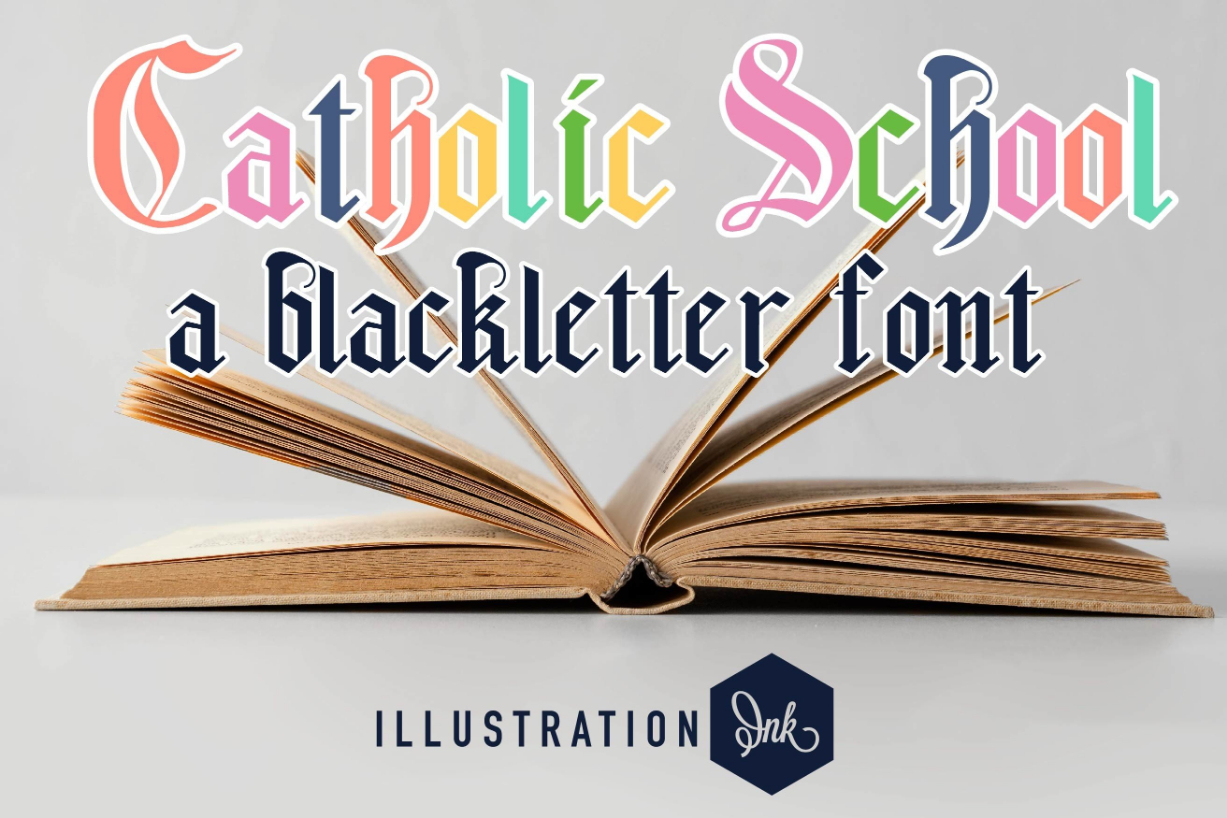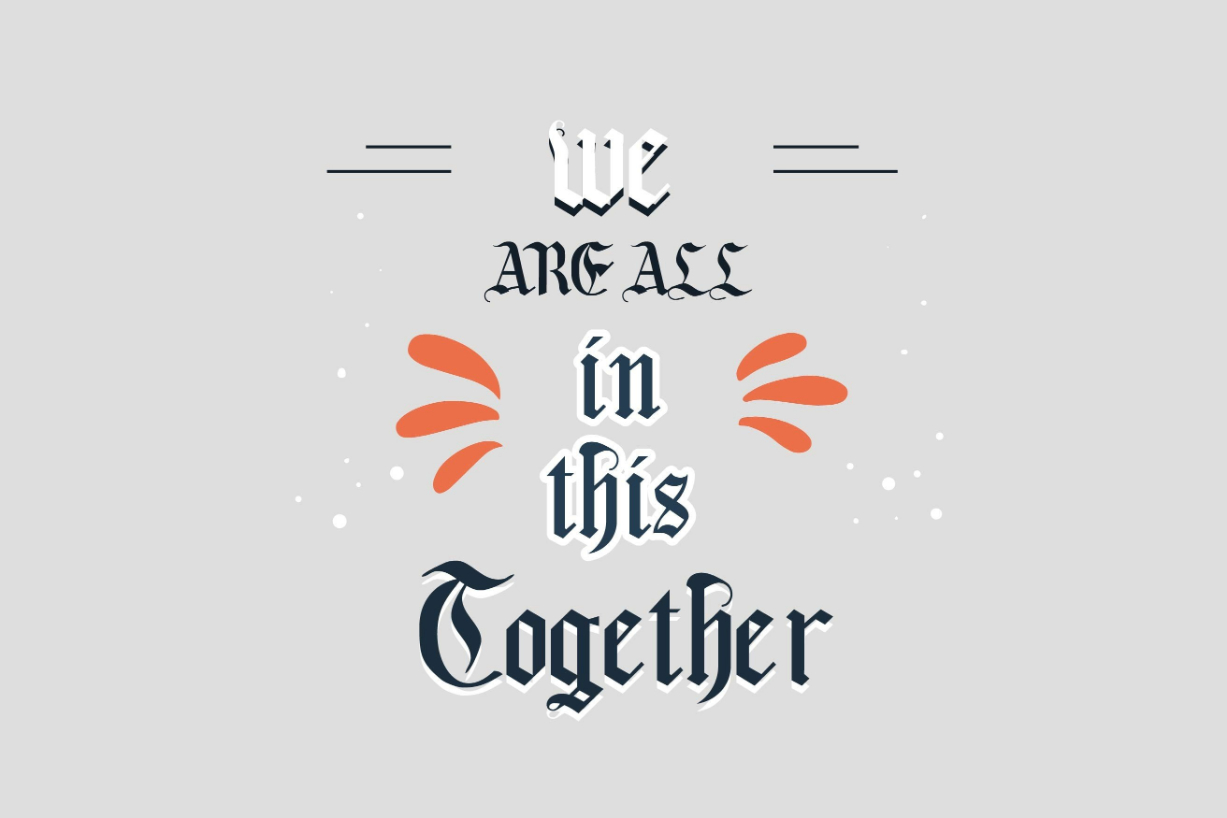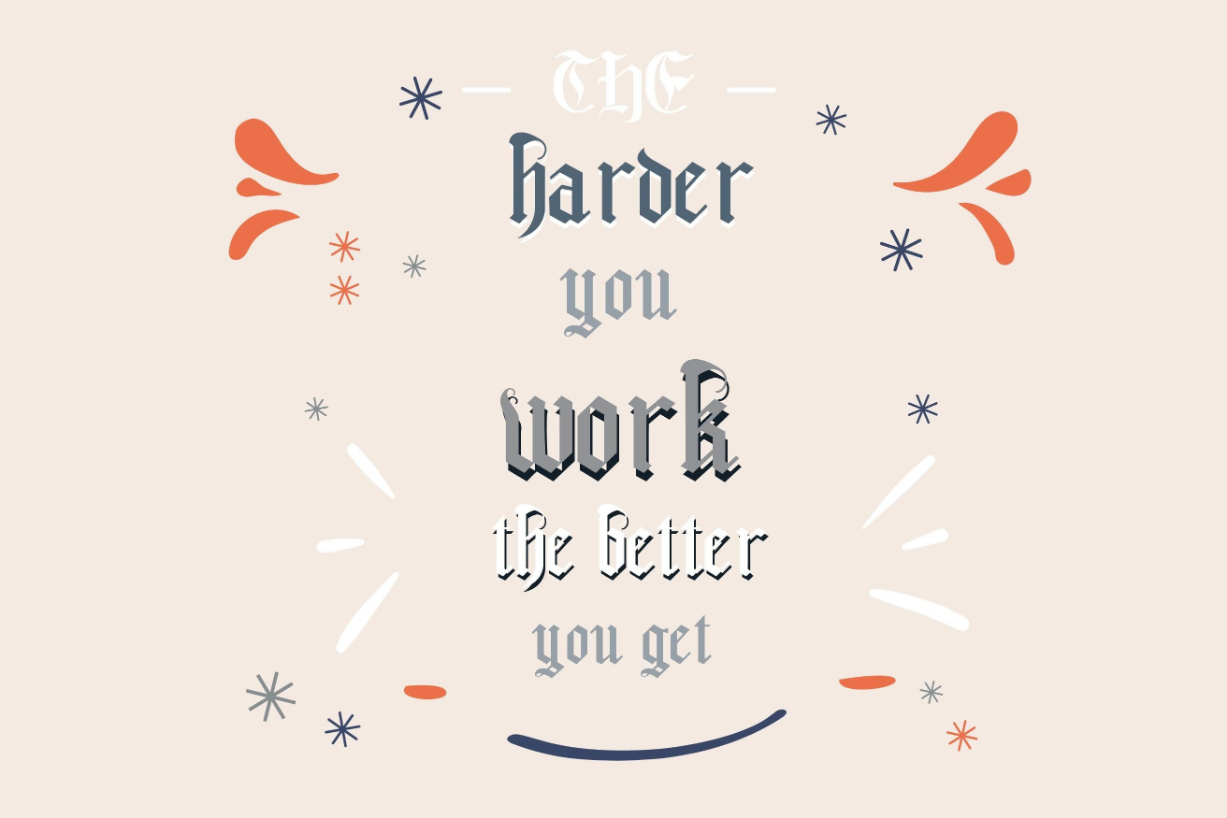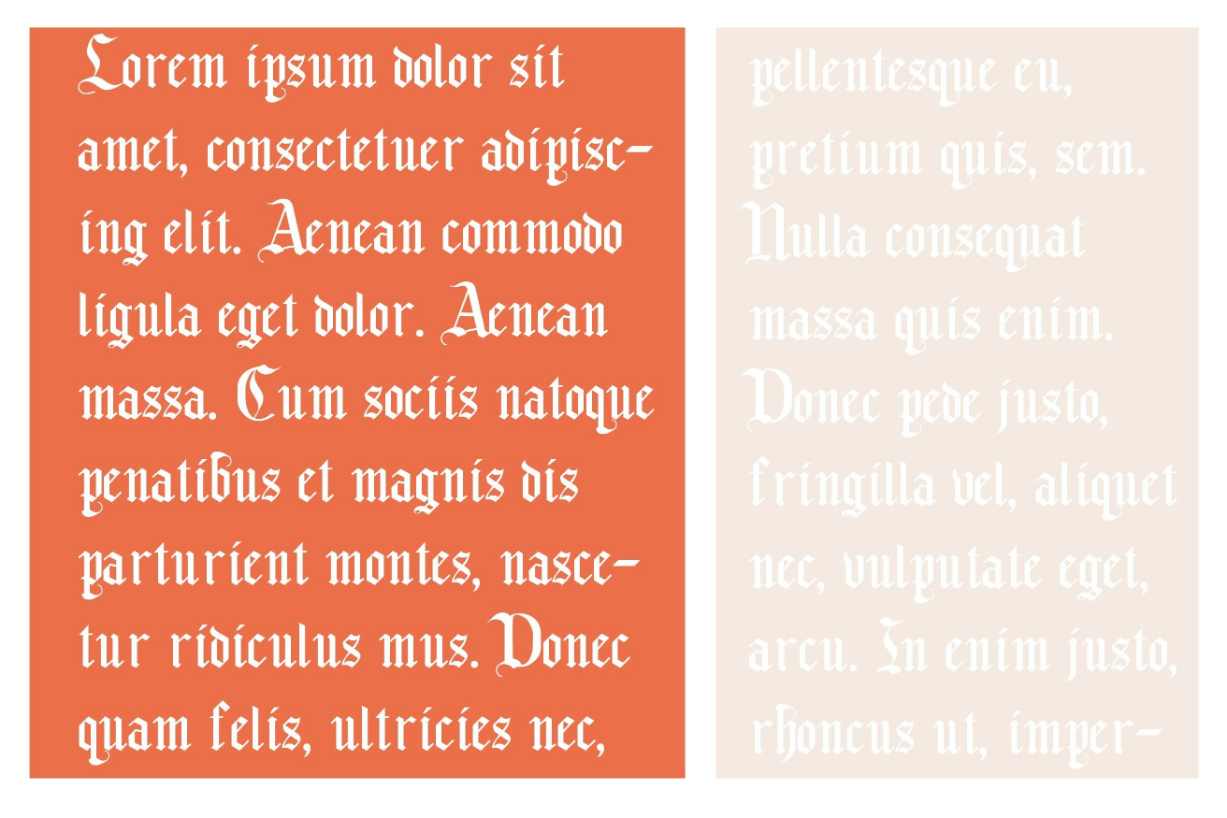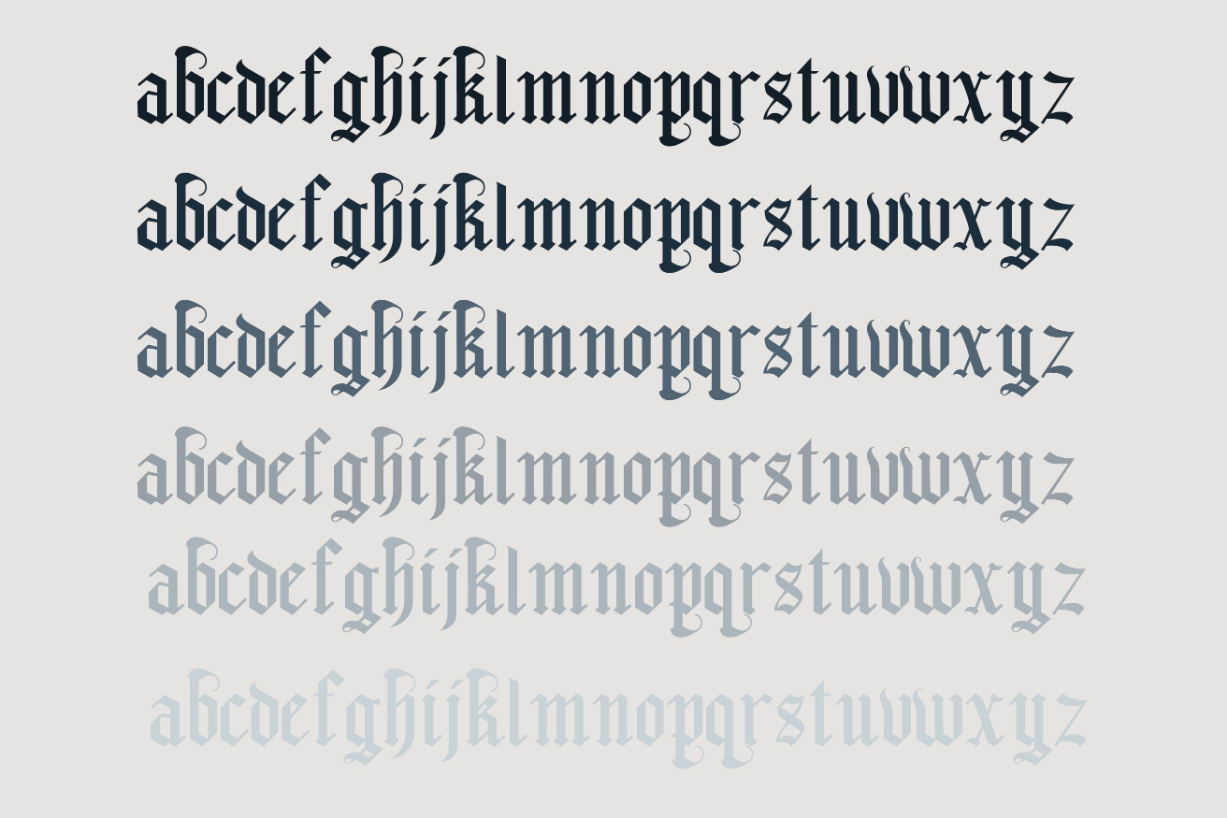
Catholic School Font
About Catholic School Font
Catholic School is an old-school, blackletter font that has a very formal feel. Fall in love with its incredibly distinct and timeless style and use it to create spectacular designs!